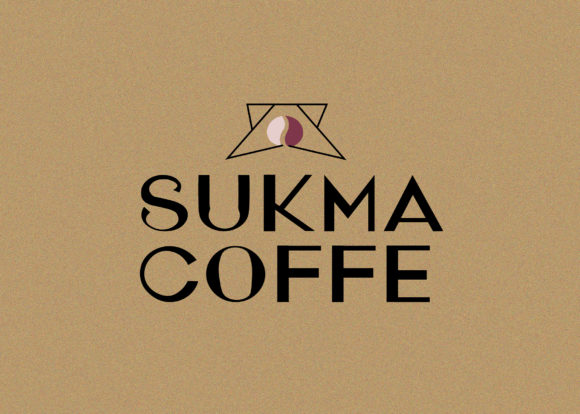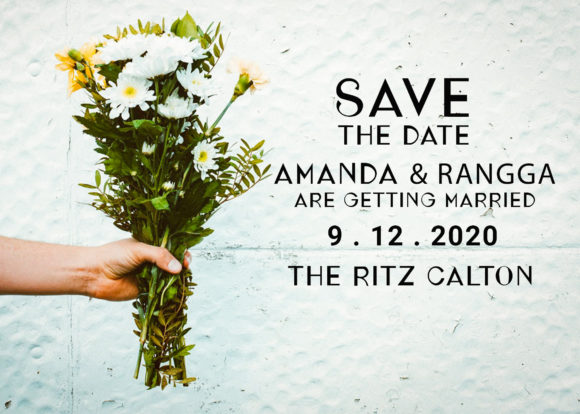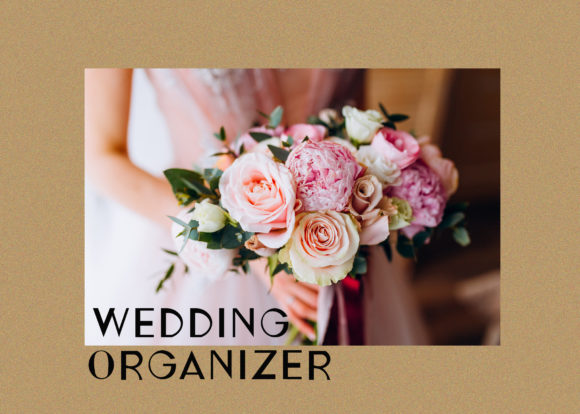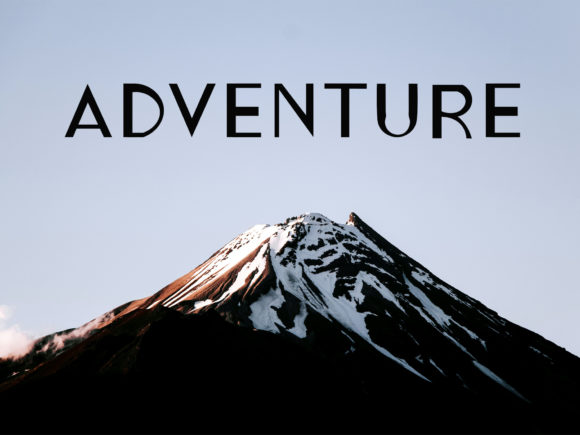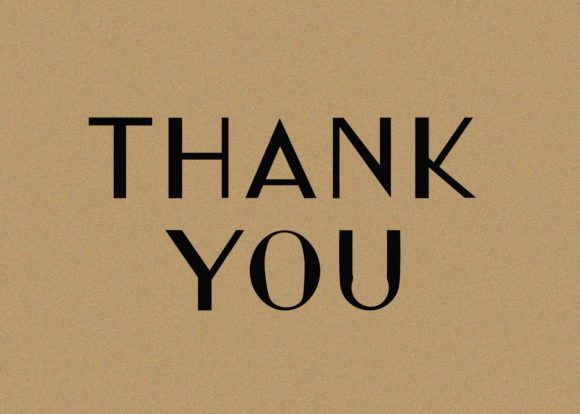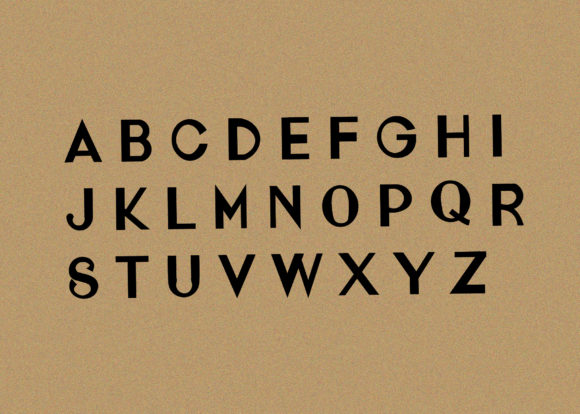
Introducing Alphin Andhita Font: The Ultimate Sans Serif for Creative Projects
Are you tired of using the same old fonts for your design projects? Look no further! Alphin Andhita Font is here to revolutionize your creative endeavors with its minimal and neat sans serif style. This versatile font is perfect for a wide range of projects, and we’re excited to dive into its features and benefits.
What is Alphin Andhita Font?
Alphin Andhita Font is a modern sans serif font designed to provide a clean and minimalist look to your designs. Its simplicity and elegance make it an ideal choice for various projects, from branding and advertising to packaging and digital media. The font’s neat and organized structure ensures that your text remains clear and readable, even at smaller font sizes.
Key Features of Alphin Andhita Font
- Minimalist Design: Alphin Andhita Font boasts a sleek and minimalist design that will elevate your designs and give them a professional touch.
- Sans Serif Style: The font’s sans serif style ensures that your text remains clean and free from distractions, making it perfect for body text and headings.
- High Versatility: Alphin Andhita Font can be used for a wide range of projects, including branding, advertising, packaging, digital media, and more.
- Excellent Readability: The font’s clear and organized structure ensures that your text remains readable, even at smaller font sizes.
Benefits of Using Alphin Andhita Font
So, why should you choose Alphin Andhita Font for your next project? Here are some benefits that make it an excellent choice:
- Enhance Your Brand’s Visual Identity: Alphin Andhita Font can help you create a strong visual identity for your brand, making it more recognizable and memorable.
- Stand Out from the Crowd: The font’s unique and minimalist design will help your designs stand out from the crowd and grab attention.
- Increase Legibility: Alphin Andhita Font’s excellent readability ensures that your message is conveyed clearly and effectively.
- Save Time and Effort: With Alphin Andhita Font, you can save time and effort by using a pre-designed font that is ready to use.
Tips and Tricks for Using Alphin Andhita Font
Here are some tips and tricks to help you get the most out of Alphin Andhita Font:
- Pair it with Other Fonts: Experiment with pairing Alphin Andhita Font with other fonts to create a unique and visually appealing combination.
- Adjust Font Sizes: Adjust font sizes to create visual hierarchy and emphasize important information.
- Use it for Headings and Body Text: Use Alphin Andhita Font for both headings and body text to create a cohesive look.
In conclusion, Alphin Andhita Font is an excellent choice for designers and crafters looking for a minimal and neat sans serif font. Its versatility, readability, and elegance make it perfect for a wide range of projects. With its ease of use and customization options, Alphin Andhita Font is sure to elevate your designs and help you create stunning visual content.